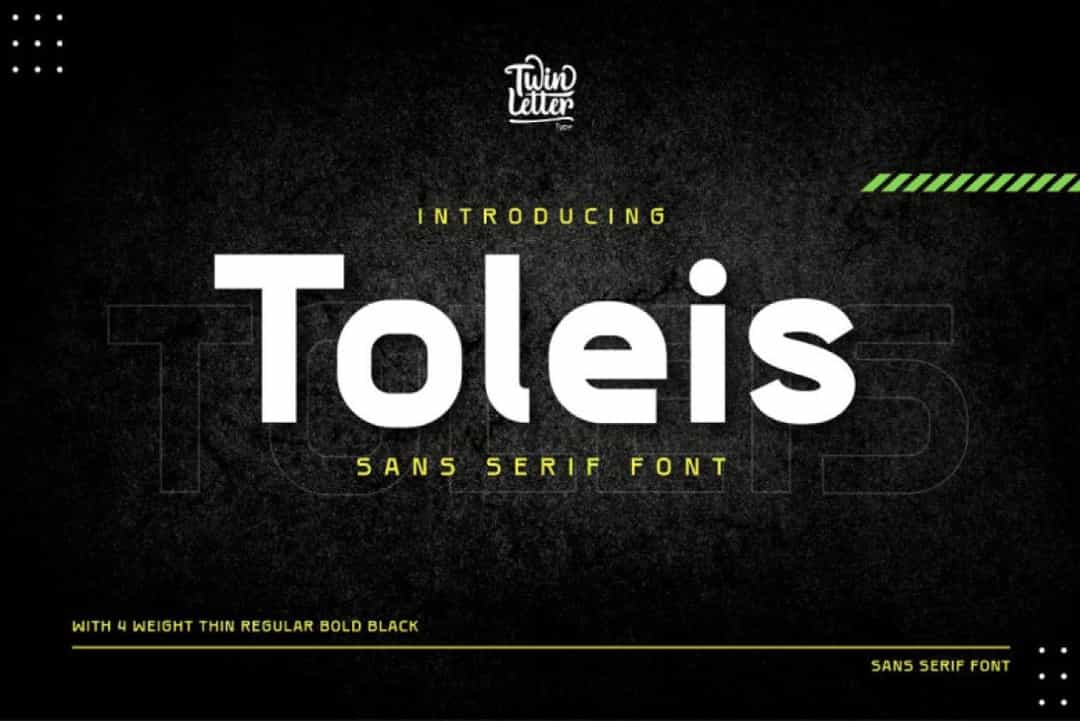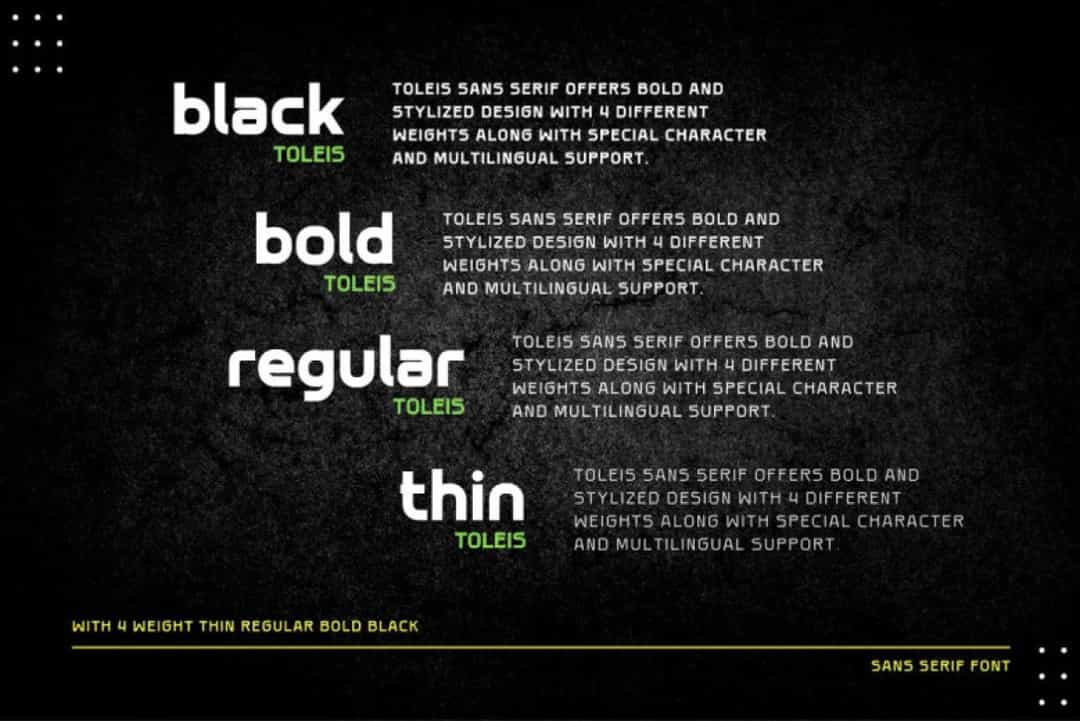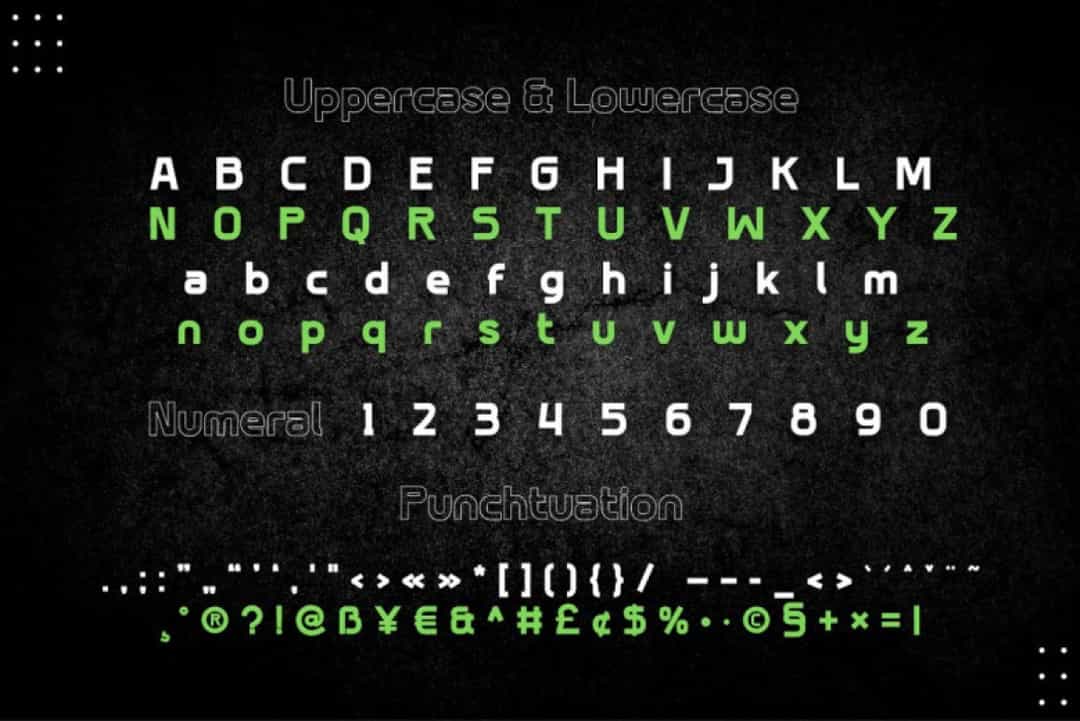
Toleis is a San Serif font we created specifically for you. Careful attention was paid to its placement when accenting text. Each overhead type has its own height that adds extra readability; punctuation marks and numbers also play a part. Furthermore, there are alternatives such as old-fashioned straps, figures styles straps as well as more than 20 different varieties of glyphs available within this pack of options for punctuation marks and numbers which form integral components of every text document.